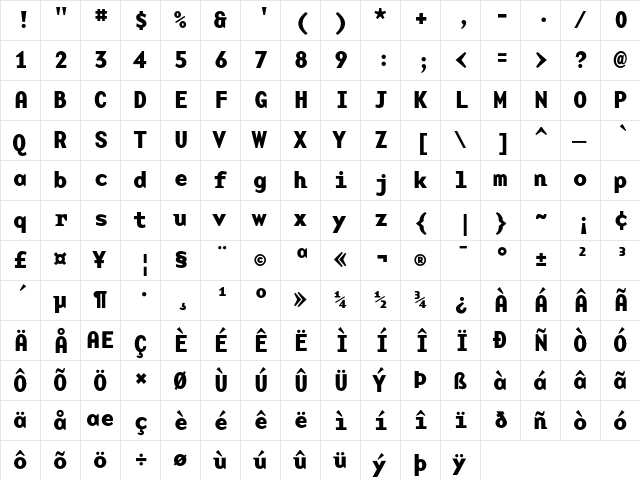
BaseMonoWide Bold Font Preview
Design Context for BaseMonoWide Typeface
BaseMonoWide brings the precise, column-aligned rhythm of monospaced typography to designs that value technical clarity and systematic order. The heavy weight commands attention and anchors typographic hierarchies.
Pro Tip: Use BaseMonoWide with slightly increased line-height for extended reading — fixed-width spacing can feel dense in longer passages without extra breathing room.